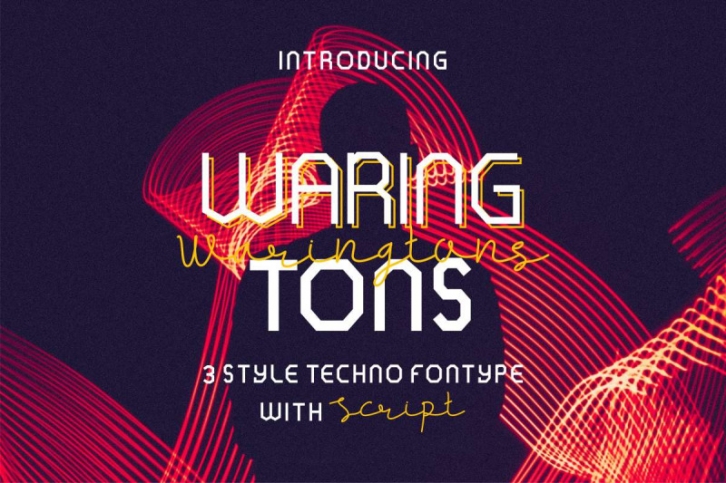
Please meet our newest font : WARINGTONS
This is a new font family consist of 4 fonts styles : Regular, Bold, Outline and Handwritten script.  On the package You will get :
It will be great for display, billboard, poster, promotion, logo (need extended license), conference, headline, branding, label etc
It also support multilingual glyphs